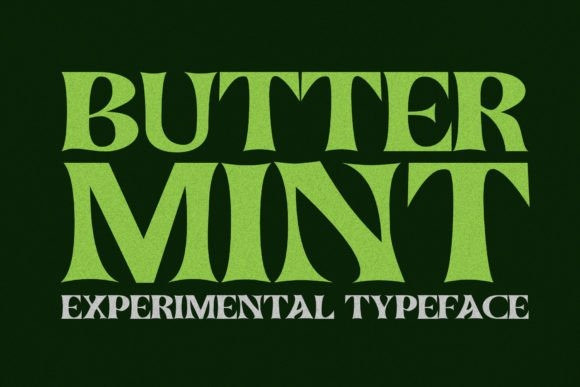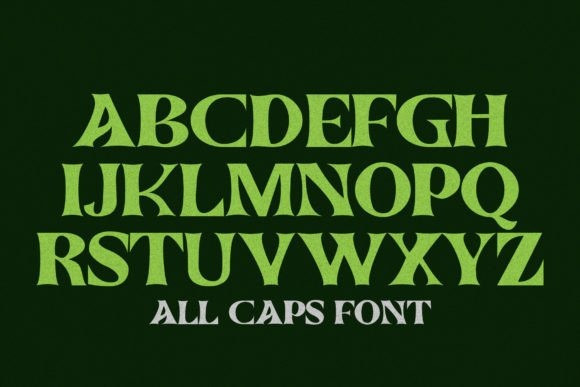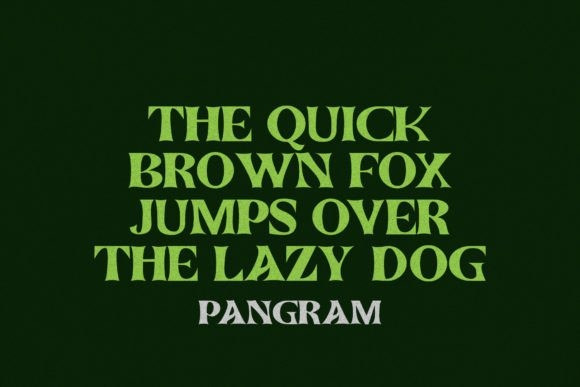
Buttermint Font
Buttermint is an experimental display typeface perfect for branding, advertising, headlines, editorials, magazines, posters, etc. Thanks to its distinctive letters, your designs will grab the viewer’s attention and keep it there.